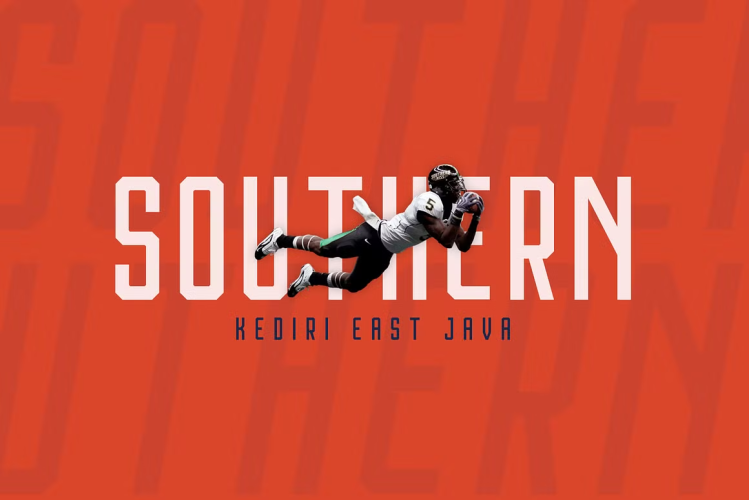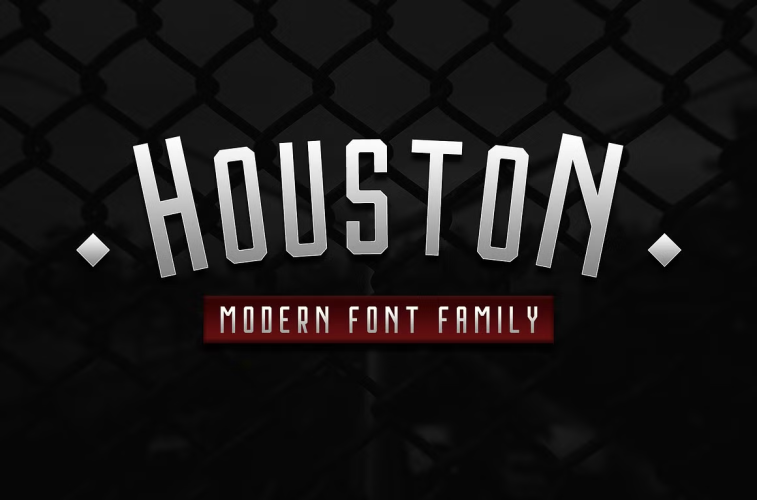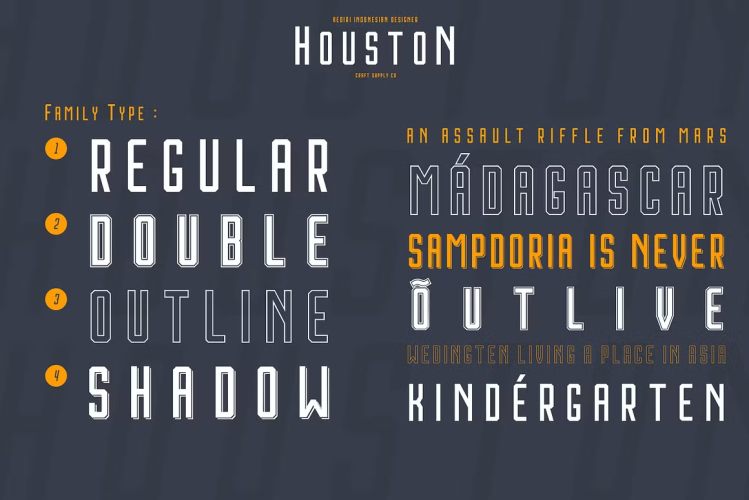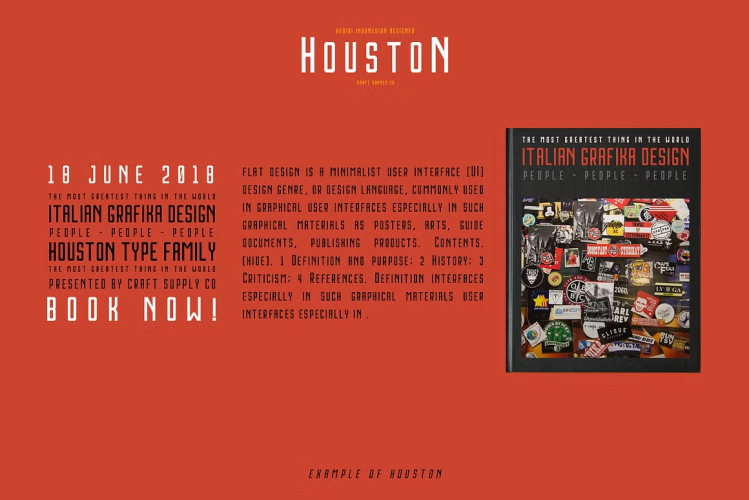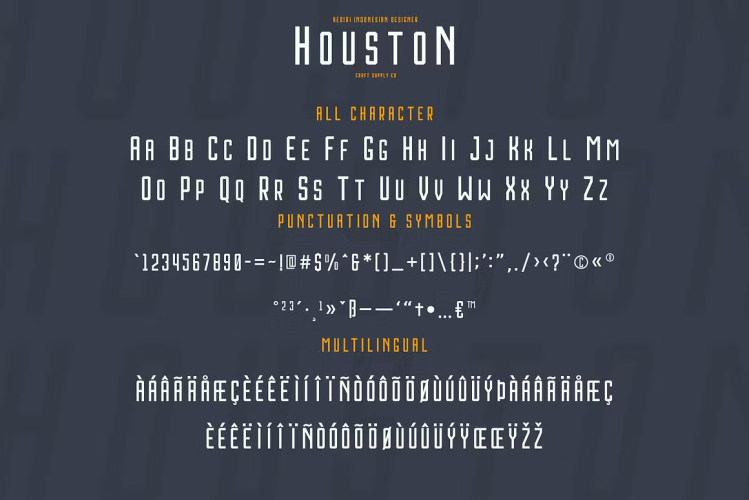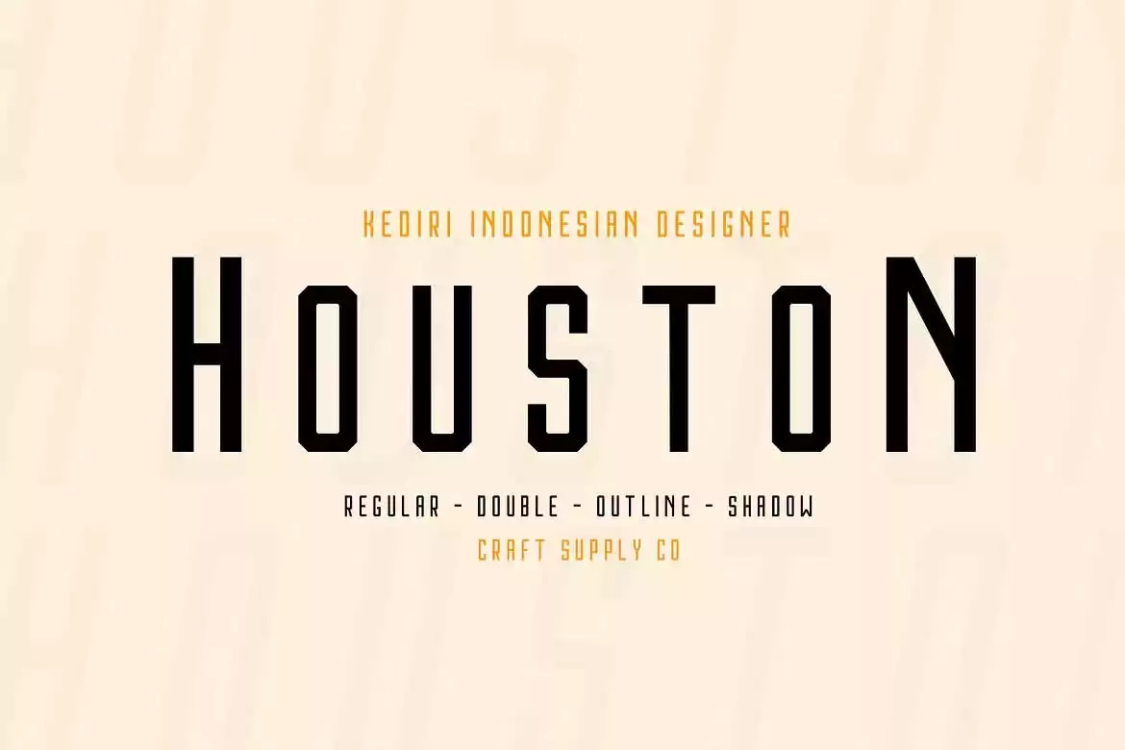
Houston Font
Introducing Houston Font Family, a modern modular sans serif family inspired by American sports graphics. Houston Font is based on a compact solid font and combines a variety of styles. It is suitable for Logos, greeting cards, quotes, posters, branding, name cards, stationary, design titles, blog headers, art quotes, and typography.
Do you want to make a greeting card, a package design, a brand identity, a craft design, a DIY project, a book title, a pop, vintage, retro design, or any other purpose to make your art/design project look pretty and trendy? Feel free to play with this font!
Houston Font is a Display Fonts font that brings a professional and versatile look to your projects. Introducing Houston Font Family, a modern modular sans serif family inspired by American sports graphics.